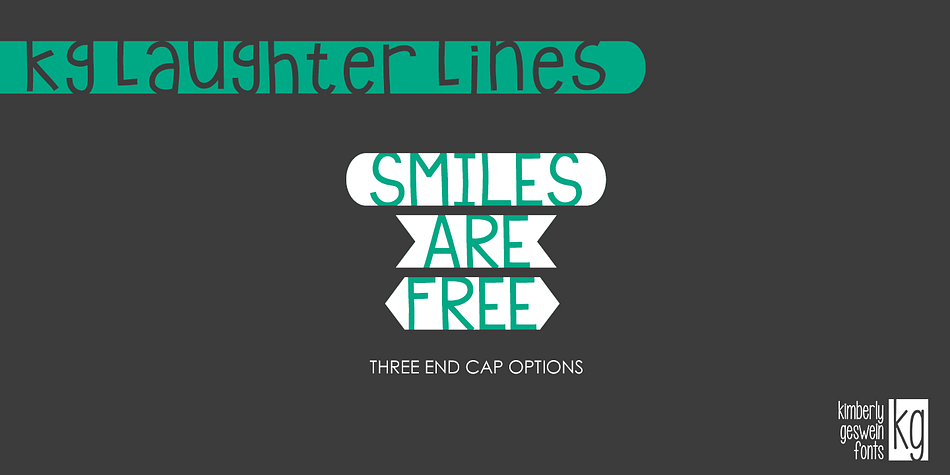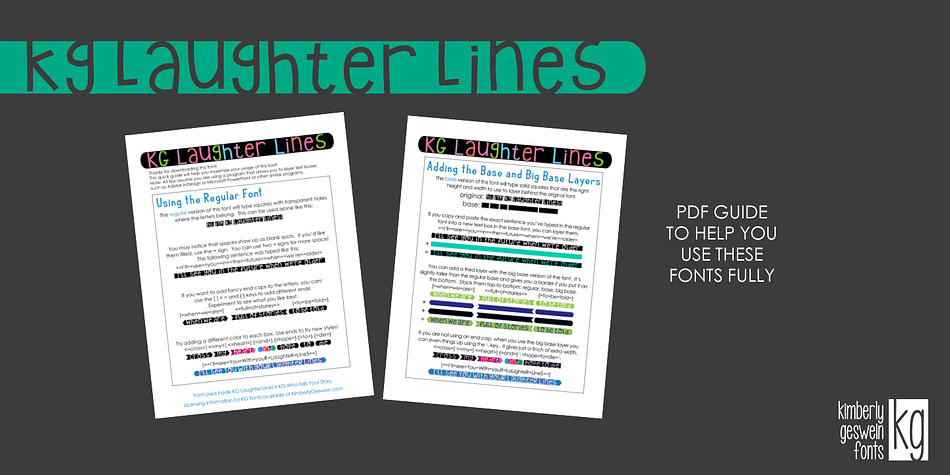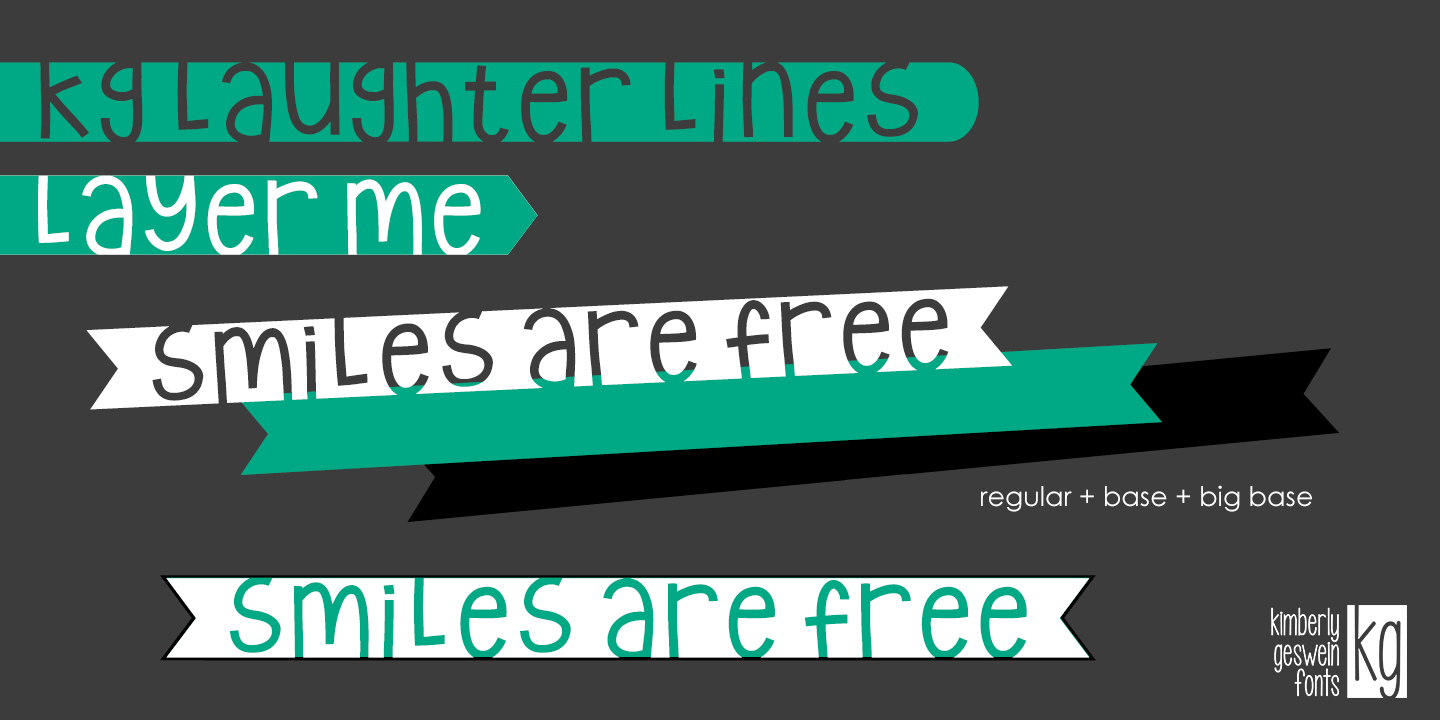
Designed by Kimberly Geswein, KG Laughter Lines is a dingbat, hand drawn and kids font family. This typeface has three styles and was published by Kimberly Geswein Fonts.
This font trio works together to build a layered unicase, whimsical look. There’s a PDF guide included to help you understand the best ways to use these fonts.